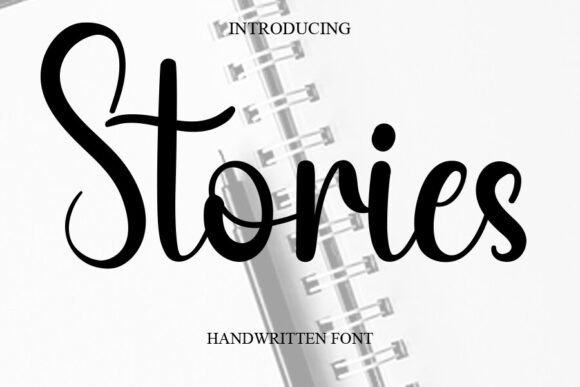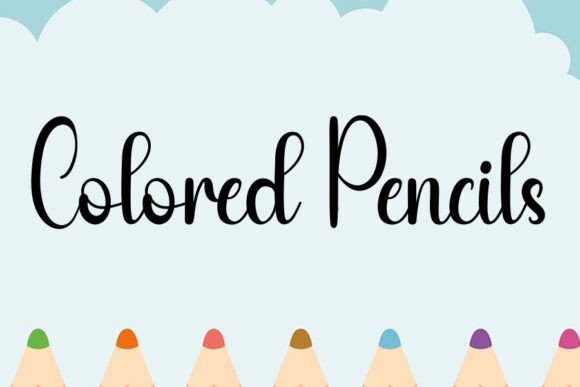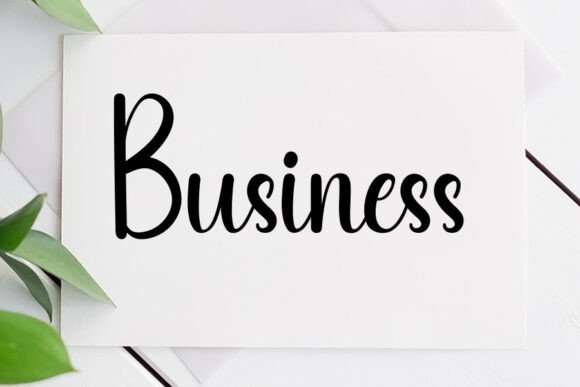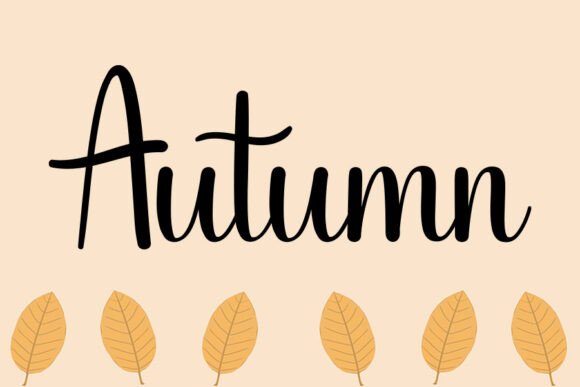
Stories Font: Cute Handwritten Font for DIY & Wedding Designs
About the Stories Font
Experience the unique personality of Stories Font, a font designed for impact. Stories is a sweet and cursive handwritten font. This gentle font will look gorgeous on a variety of design ideas. It will add a joyful and romantic touch to each of your projects! Perfectly fit for branding, logo, wedding things, greeting cards, fashion, lookbook, marketing promotion, and any time you want your design to look fancy and elegant but still casual.
Stories Font Usage Examples
Stories Font Example